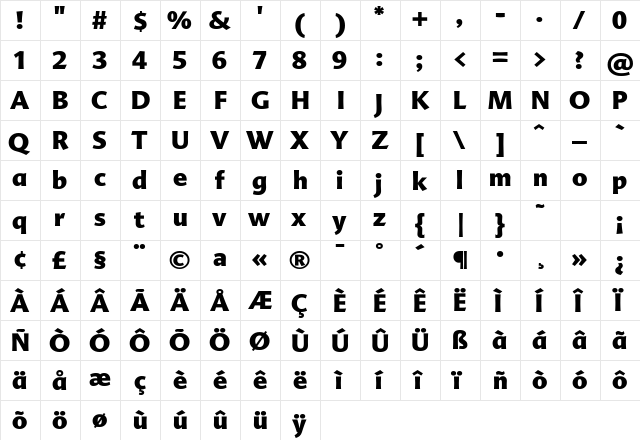
AdvertBlack Regular
Design Context for AdvertBlack Typeface
AdvertBlack is a composed and adaptable typeface that performs quietly and consistently across a wide range of design contexts.